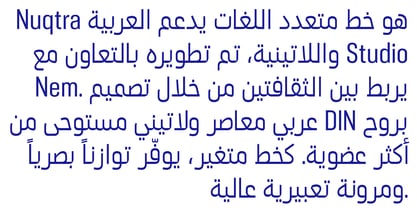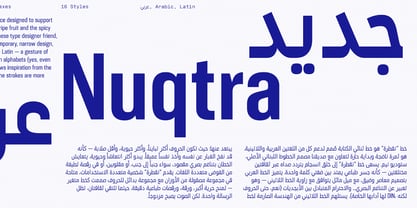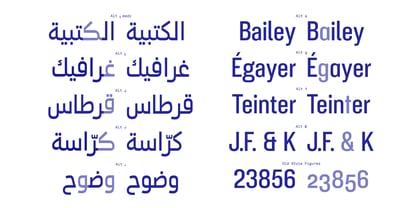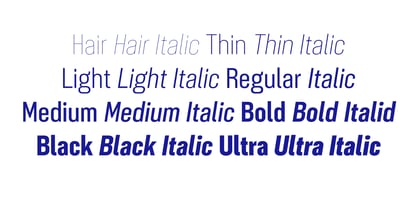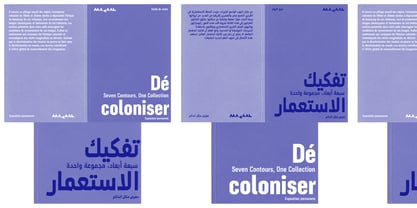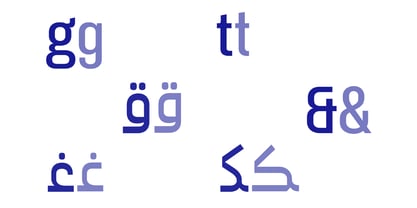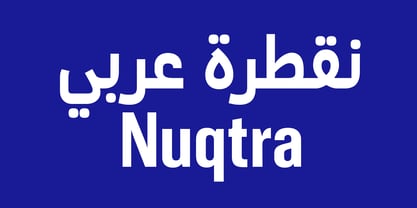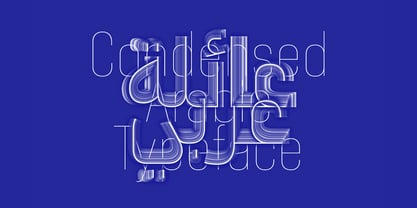
Nuqtra Arabic
by Pizzatypefaces
The Nuqtra Arabic Font Family was designed by Adrien Midzic and published by Pizzatypefaces. Nuqtra Arabic contains 16 styles and family package options. More about this family
Nuqtra Typeface is a versatile multiscript typeface designed to support both Arabic and Latin languages. This unique font is the result of a collaboration with our talented Lebanese type designer friend, Studio Nem. Nuqtra aims to create a harmonious connection between two distinct cultures, acting as a typographic bridge that resonates across languages. The Arabic script features a contemporary, narrow design, with an italic style that aligns with the angle of the Latin script, showcasing visual coherence and mutual respect between the alphabets. The Latin characters draw inspiration from the strict geometry of DIN, yet they diverge with more contrasted and organic strokes, giving a fresh and lively appearance. Nuqtra's two scripts coexist in deliberate visual harmony, whether displayed side by side, upside down, or in a playful multilingual arrangement. This typeface offers a refined range of weights and alternate glyphs, designed as a variable font to provide greater freedom, subtlety, and typographic microdances. Where two cultures converge, the message remains consistent, but the voice becomes multifaceted.
Designers: Adrien Midzic